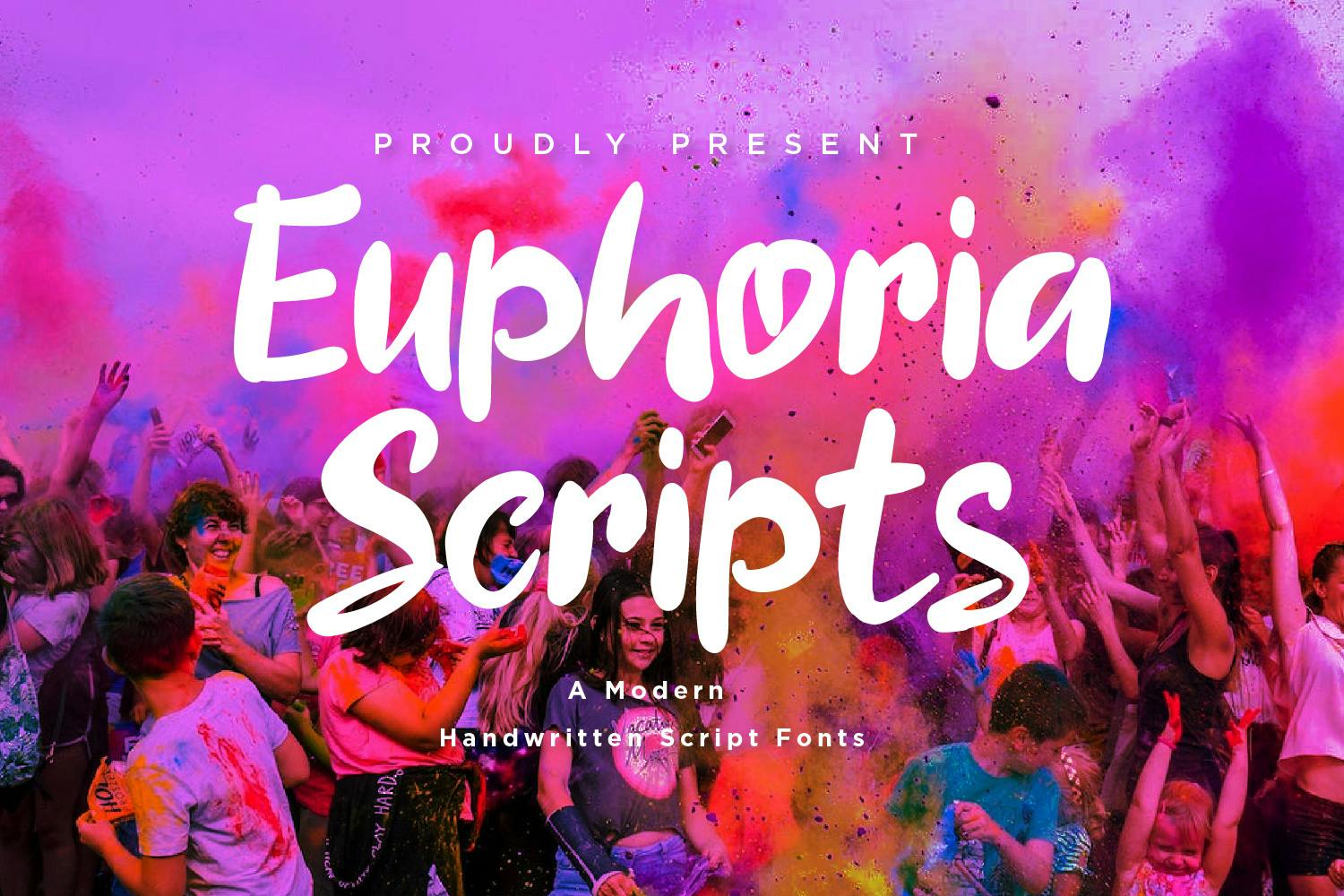
Euphoria Scripts – Handwritten Script fonts
Euphoria Scripts is a collection of beautifully crafted handwritten script fonts designed to add a personal touch to any project. With normal spacing and optimal sizing for versatility, these fonts enhance creativity in various applications, from invitations to branding materials. Users can easily incorporate Euphoria Scripts into their designs, elevating their work with a unique, artistic flair.